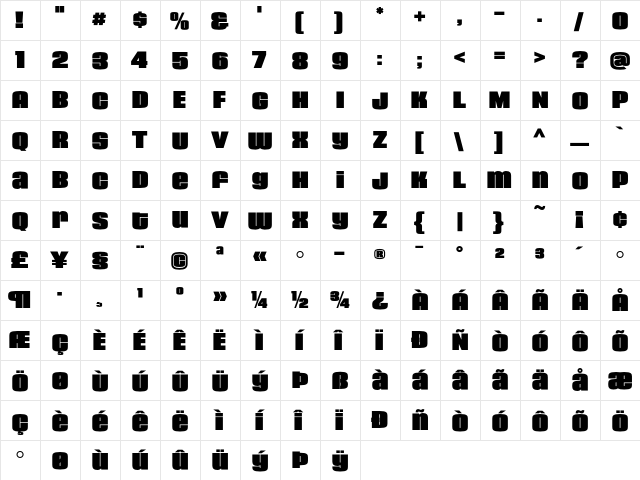
HouseGothicHG23Ext BLACK
| Designer | Allen Mercer/Tal Leming |
Design Context for HouseGothicHG23Ext Typeface
HouseGothicHG23Ext has the quiet confidence of well-executed sans-serif typography: versatile, unobtrusive, and dependable at any size.
Font Pairing: Works well alongside a characterful serif or display font that can carry the expressive load while HouseGothicHG23Ext handles the functional copy.
Pro Tip: Use HouseGothicHG23Ext for UI labels, navigation, and short-form body copy where clean legibility is the priority.